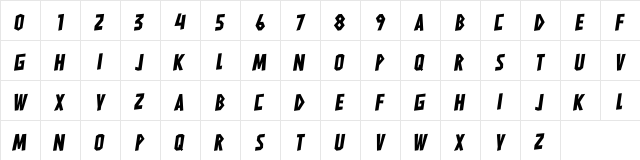
HARDLINERS Regular
| Designer | HIRO.std |
Design Context for HARDLINERS Typeface
HARDLINERS offers clean, dependable letterforms without strong stylistic allegiance, making it a practical choice for designers who need flexibility.